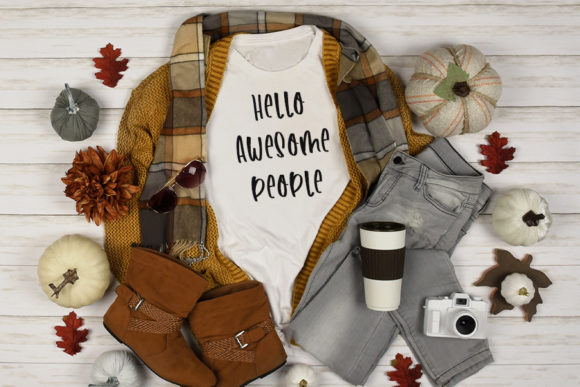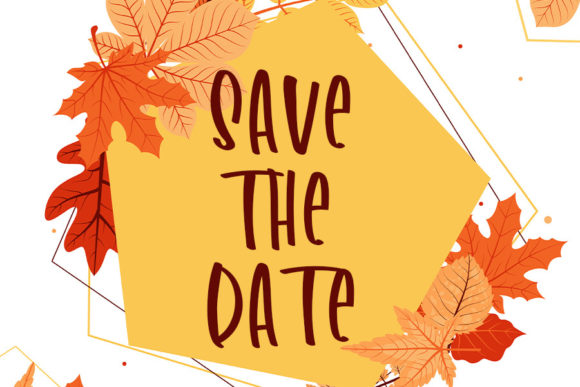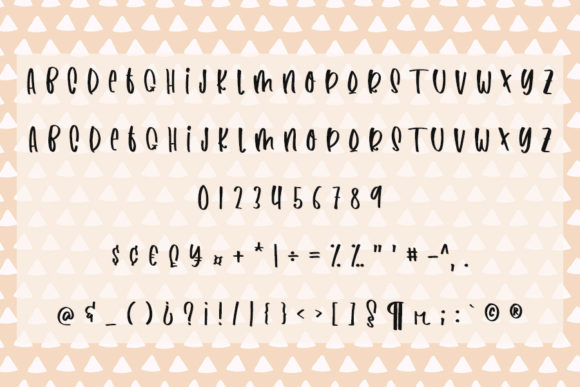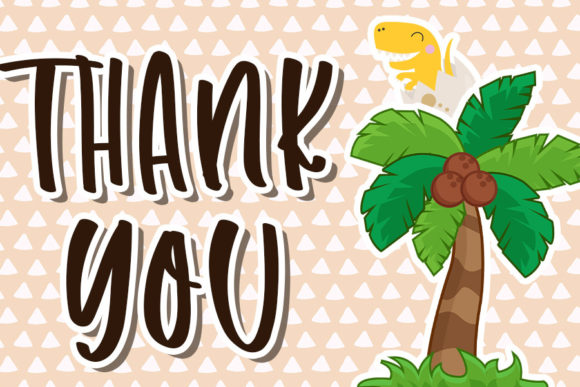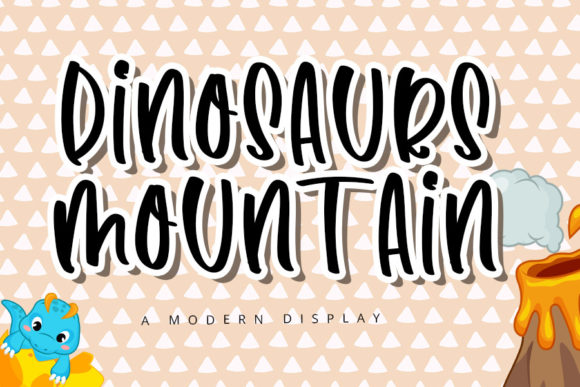
Unleash Your Creativity with Dinosaurs Mountain Font
Are you a designer, crafter, or DIY enthusiast looking for a font that can add a touch of whimsy and charm to your projects? Look no further than Dinosaurs Mountain Font! This delightful handwritten font is perfect for anyone who wants to create beautiful and eye-catching designs that showcase their personality and style.
What is Dinosaurs Mountain Font?
Dinosaurs Mountain Font is a well-balanced, cheery, and delicate handwritten font that is sure to capture your heart. Its unique and playful design makes it an excellent choice for a wide range of creative projects, from Instagram posts and stories to calligraphy scripts and DIY crafts. With its smooth and flowing lines, this font is guaranteed to add a touch of elegance and sophistication to any design.
Key Features of Dinosaurs Mountain Font
• Well-balanced design: The font’s carefully crafted design ensures that it looks great in any context, whether you’re using it for a title, a heading, or a block of text.
• Cheery and delicate: The font’s playful and whimsical design makes it perfect for projects that require a touch of personality and charm.
• Handwritten style: The font’s handwritten style gives it a unique and personal touch that is sure to make your designs stand out.
• Versatile: Whether you’re creating Instagram posts, calligraphy scripts, or DIY projects, this font is sure to be a great fit.
Uses for Dinosaurs Mountain Font
So, what can you use Dinosaurs Mountain Font for? The possibilities are endless! Here are a few ideas to get you started:
• Instagram posts and stories: Add a touch of personality and style to your Instagram posts and stories with this beautiful font.
• Calligraphy scripts: Use Dinosaurs Mountain Font to create beautiful calligraphy scripts for DIY projects, such as wedding invitations, greeting cards, and more.
• DIY crafts: Add a personal touch to your DIY crafts, such as scrapbooking, journaling, and paper crafting, with this lovely font.
• Graphic design projects: Use Dinosaurs Mountain Font in your graphic design projects, such as brochures, flyers, and posters, to add a touch of whimsy and charm.
Why Choose Dinosaurs Mountain Font?
So, why should you choose Dinosaurs Mountain Font for your next project? Here are just a few reasons:
• Unique and playful design: This font’s unique and playful design is sure to make your projects stand out from the crowd.
• Easy to read: Despite its playful design, Dinosaurs Mountain Font is easy to read, making it perfect for use in a wide range of contexts.
• High-quality: This font is of high quality, ensuring that it will look great in any context.
• Versatile: As mentioned earlier, Dinosaurs Mountain Font is versatile and can be used in a wide range of creative projects.
In conclusion, Dinosaurs Mountain Font is a beautiful and versatile handwritten font that is perfect for designers, crafters, and DIY enthusiasts. Its unique and playful design makes it an excellent choice for a wide range of creative projects, from Instagram posts and stories to calligraphy scripts and DIY crafts. Whether you’re looking for a font that can add a touch of whimsy and charm to your projects or simply want to create something beautiful and eye-catching, Dinosaurs Mountain Font is an excellent choice.